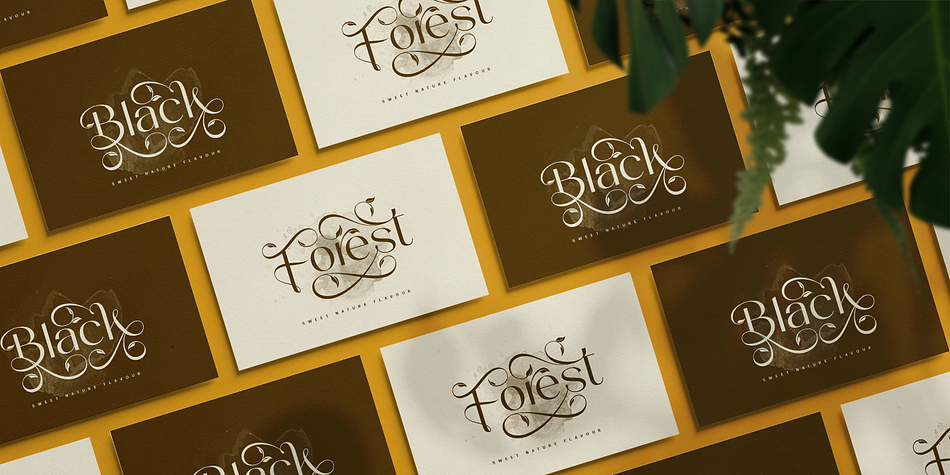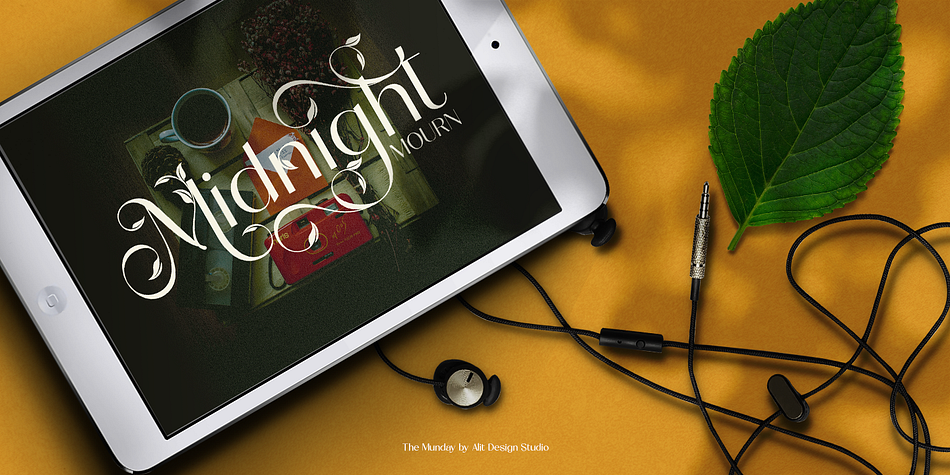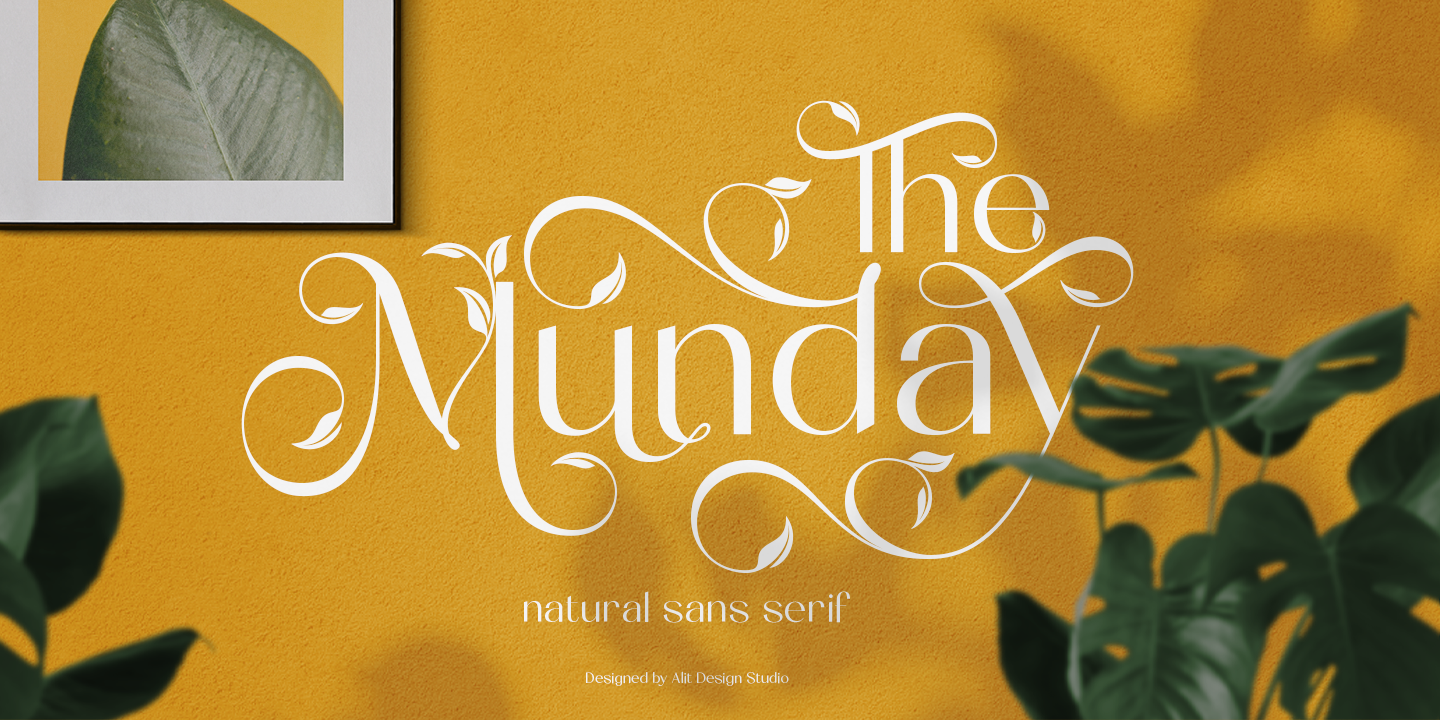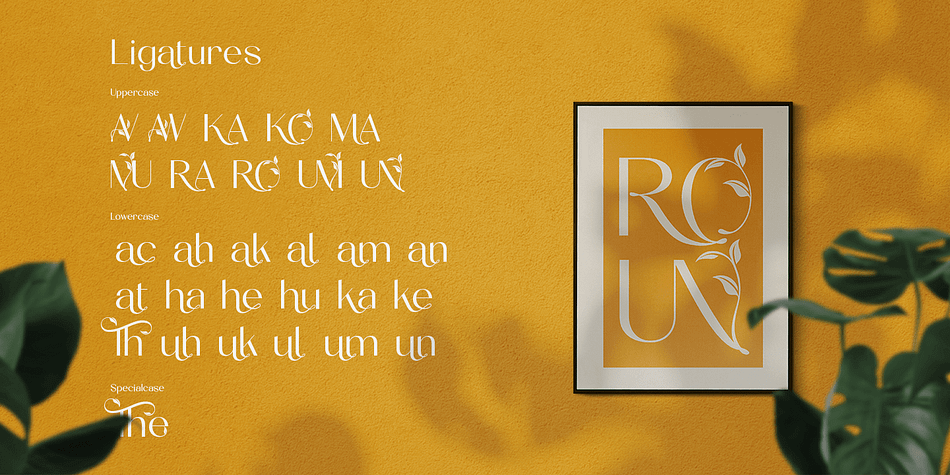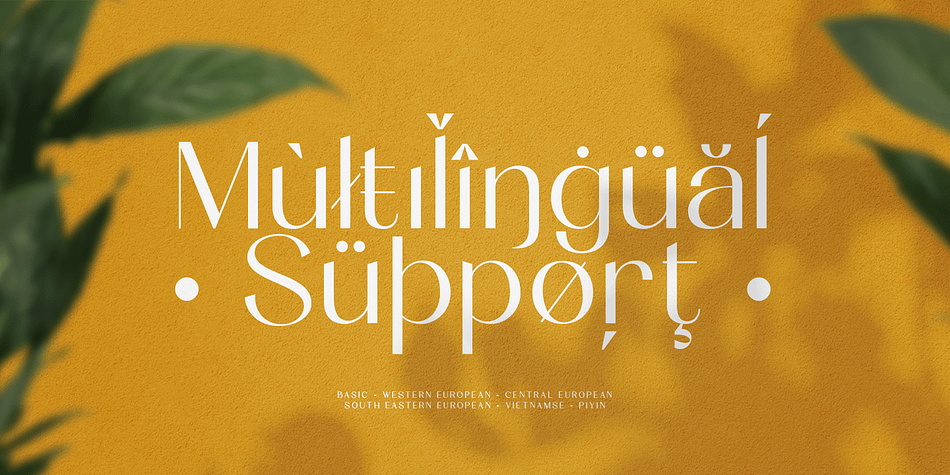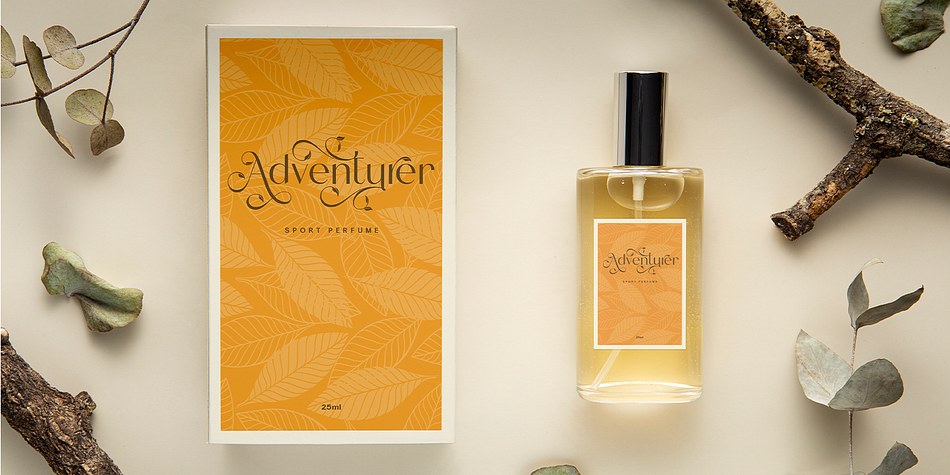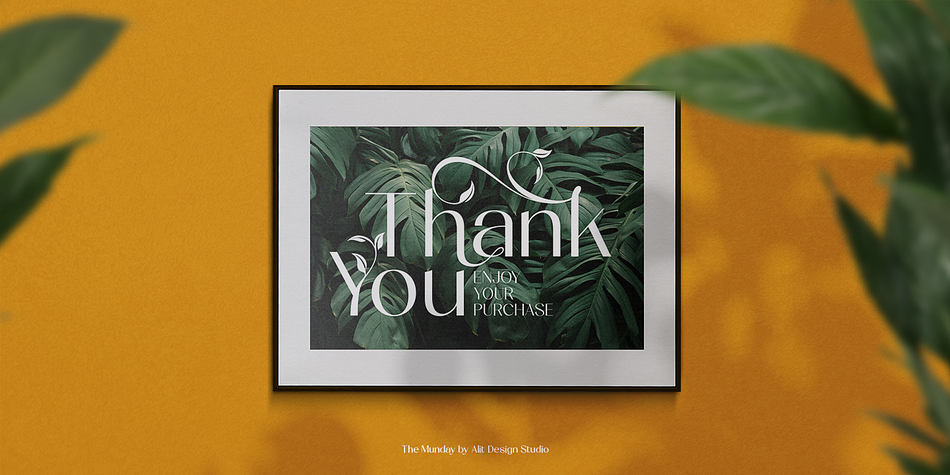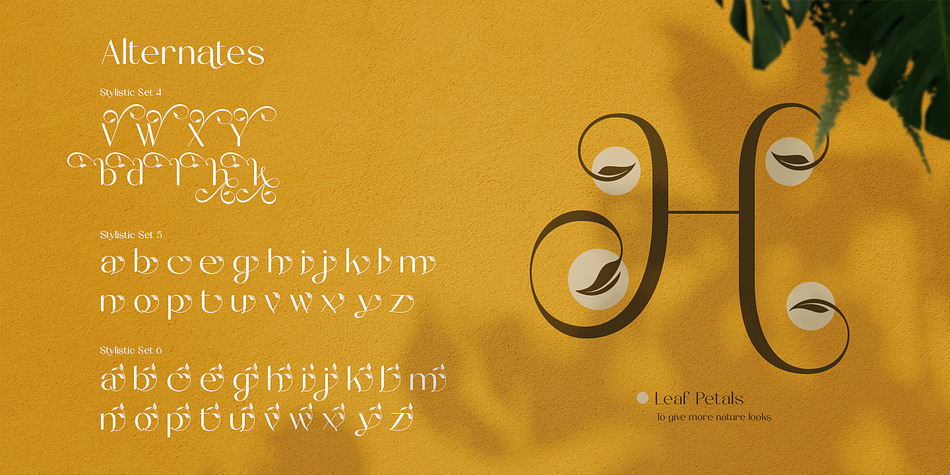
The Munday
Designed by Alit Suarnegara, The Munday is a display sans and sans serif font family published by Alit Design.
The Munday is a sans serif font that features a nature concept with leaf swashes. It has a modern and clean design that can be used for various design projects such as branding, titles, logos, and more. Its leaf swashes give it a unique and playful touch, making it suitable for projects with a nature or organic theme.
Yes, that’s correct. The Munday font has support for ligatures, which are special character combinations that create a more visually appealing text appearance. It also supports multiple languages and has a total of 648 glyph characters, providing a wide range of options for users in different countries and regions. This makes the font versatile and suitable for various international projects.
Language Support : Latin, Basic, Western European, Central European, South European,Vietnamese.